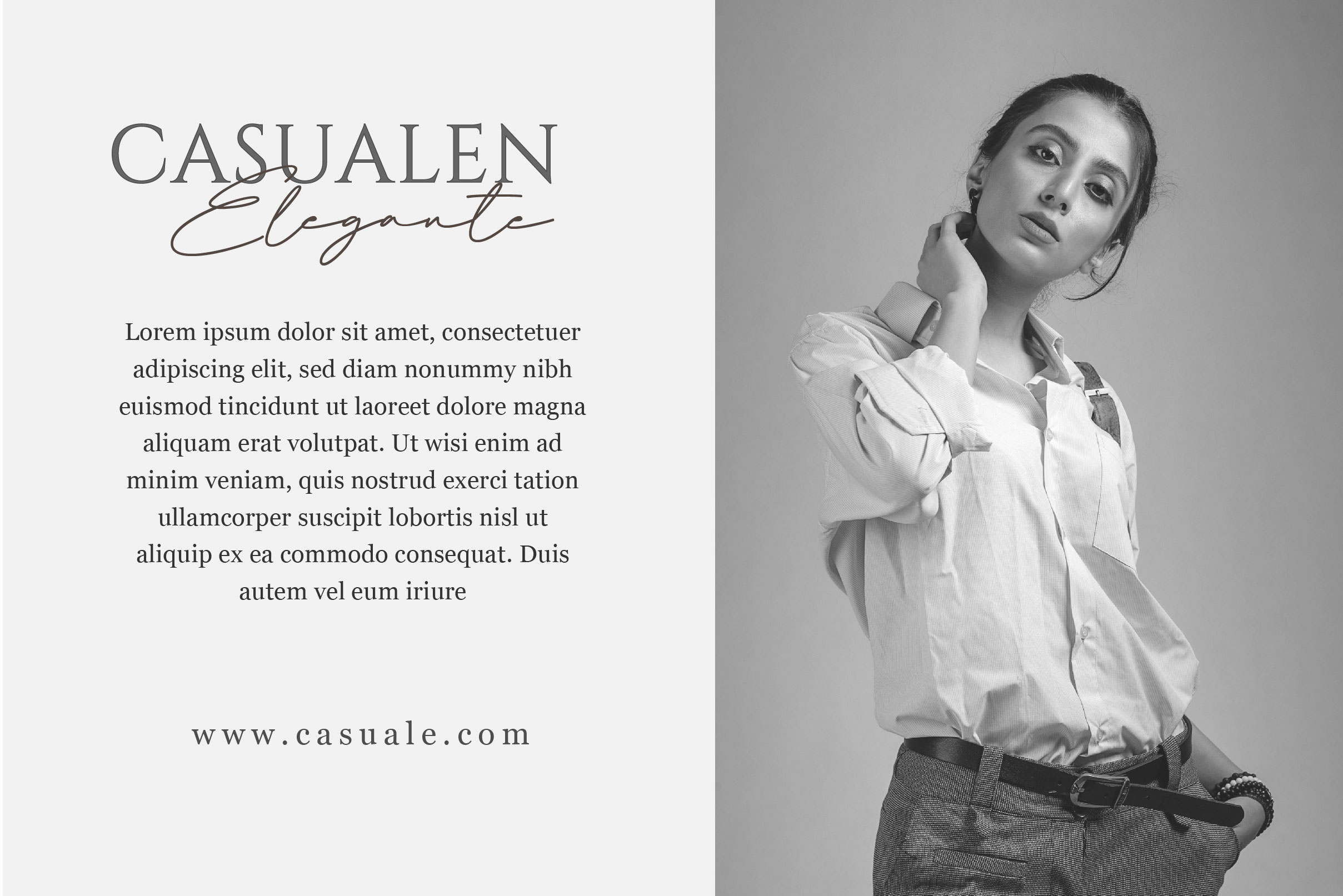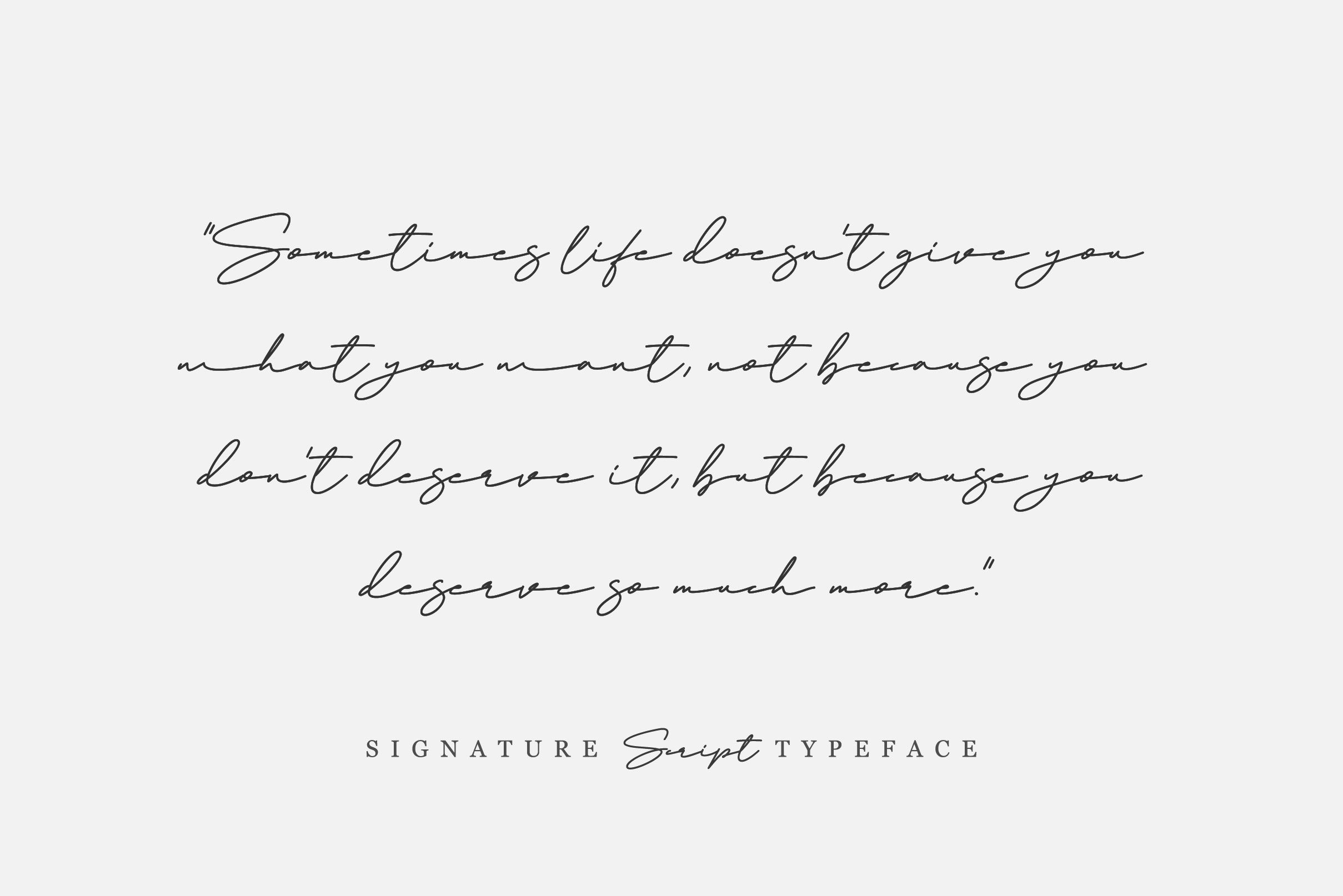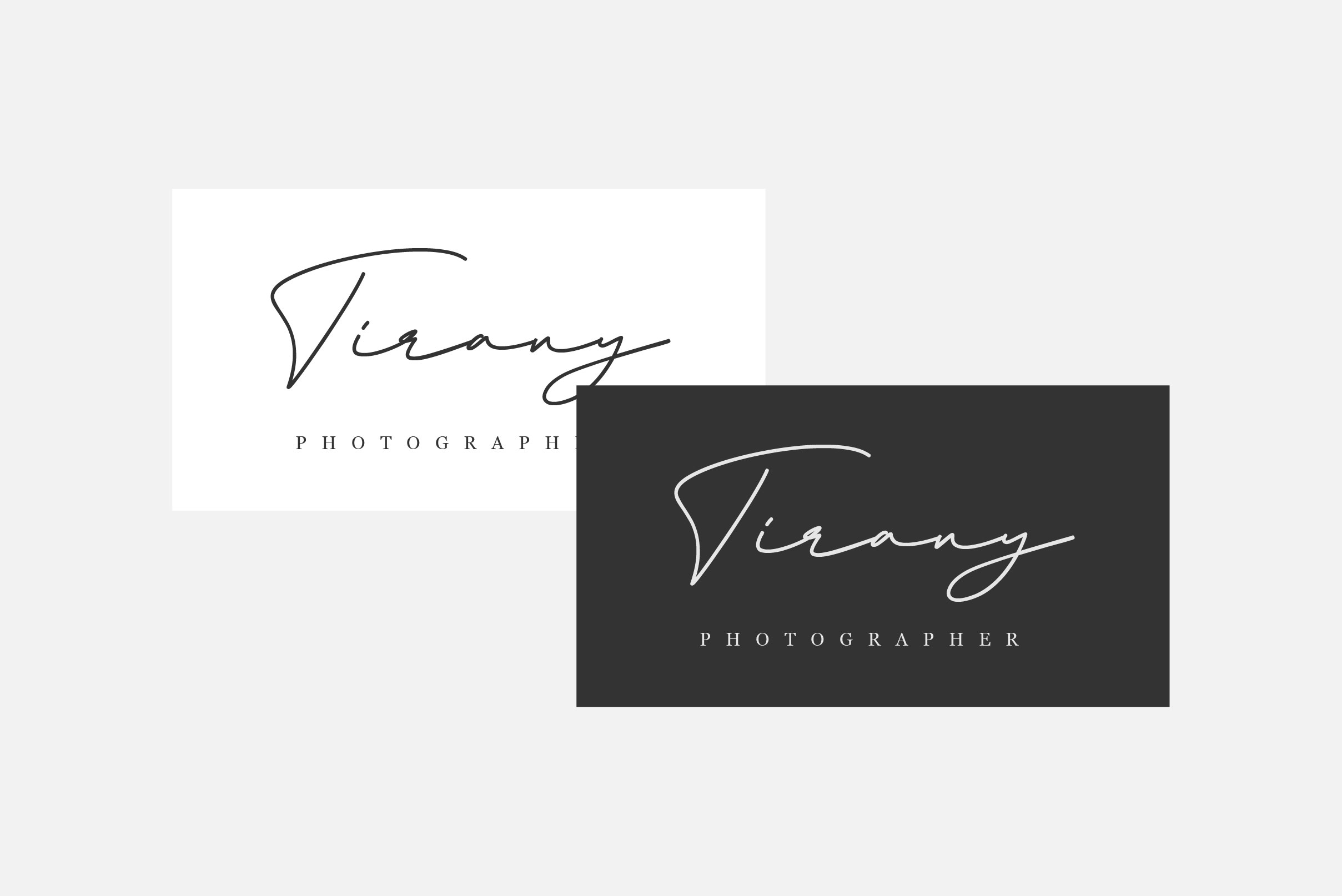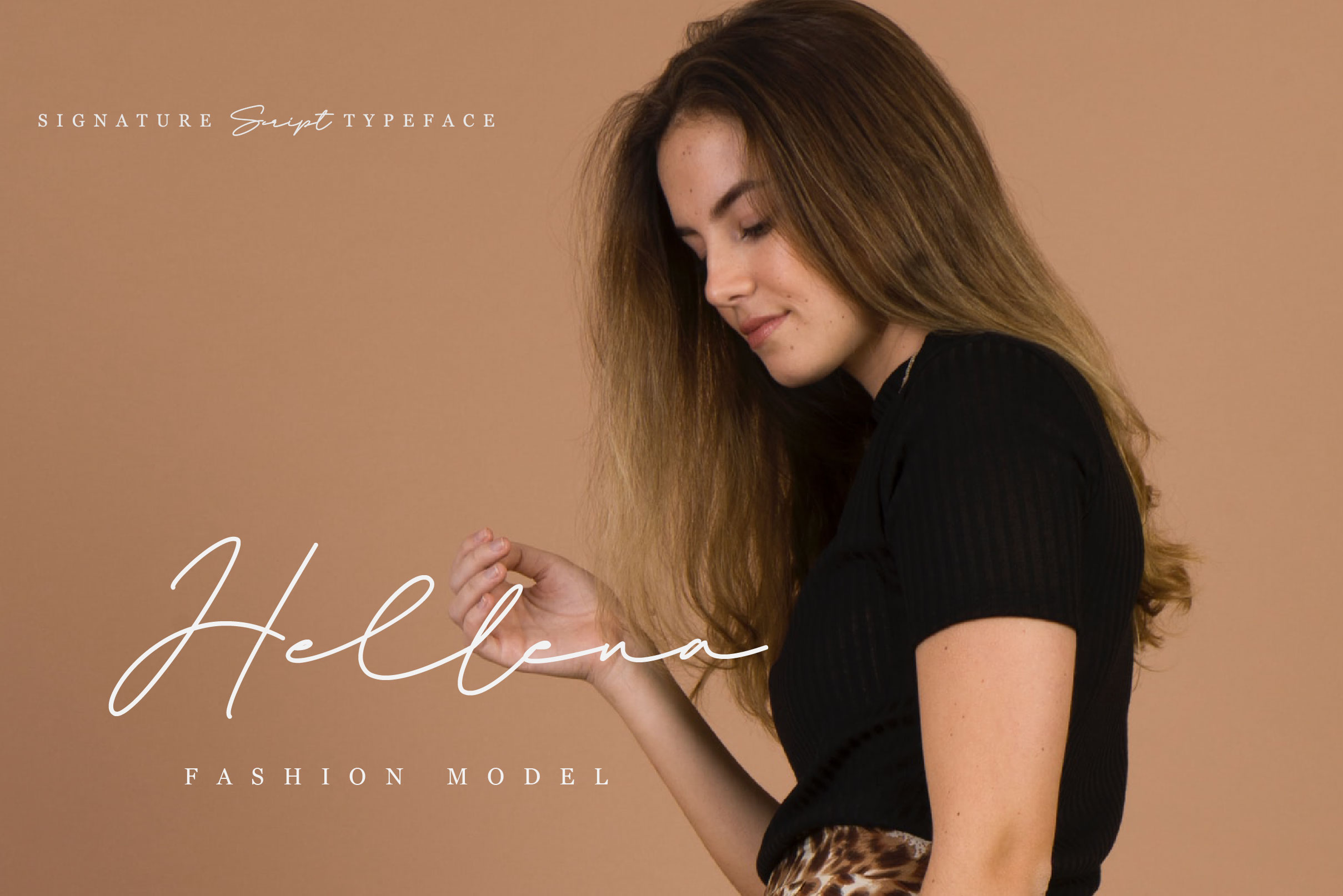
Signaline Font
Signaline Handwritten Font is a thin lettered and graceful script font. Fall for its ravishing style and use it to create gorgeous wedding invitations, beautiful stationary art, eye-catching social media posts, and much more!